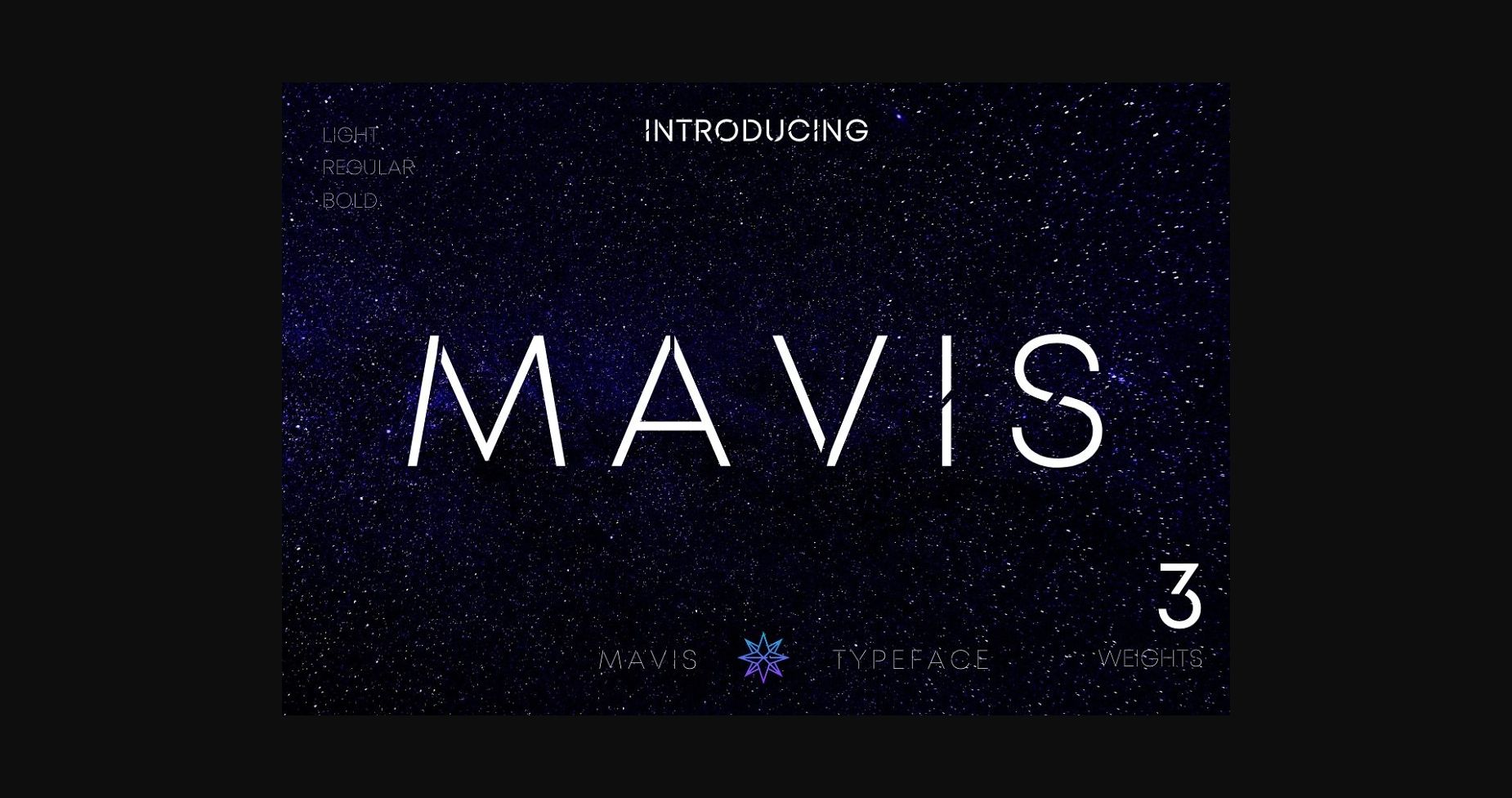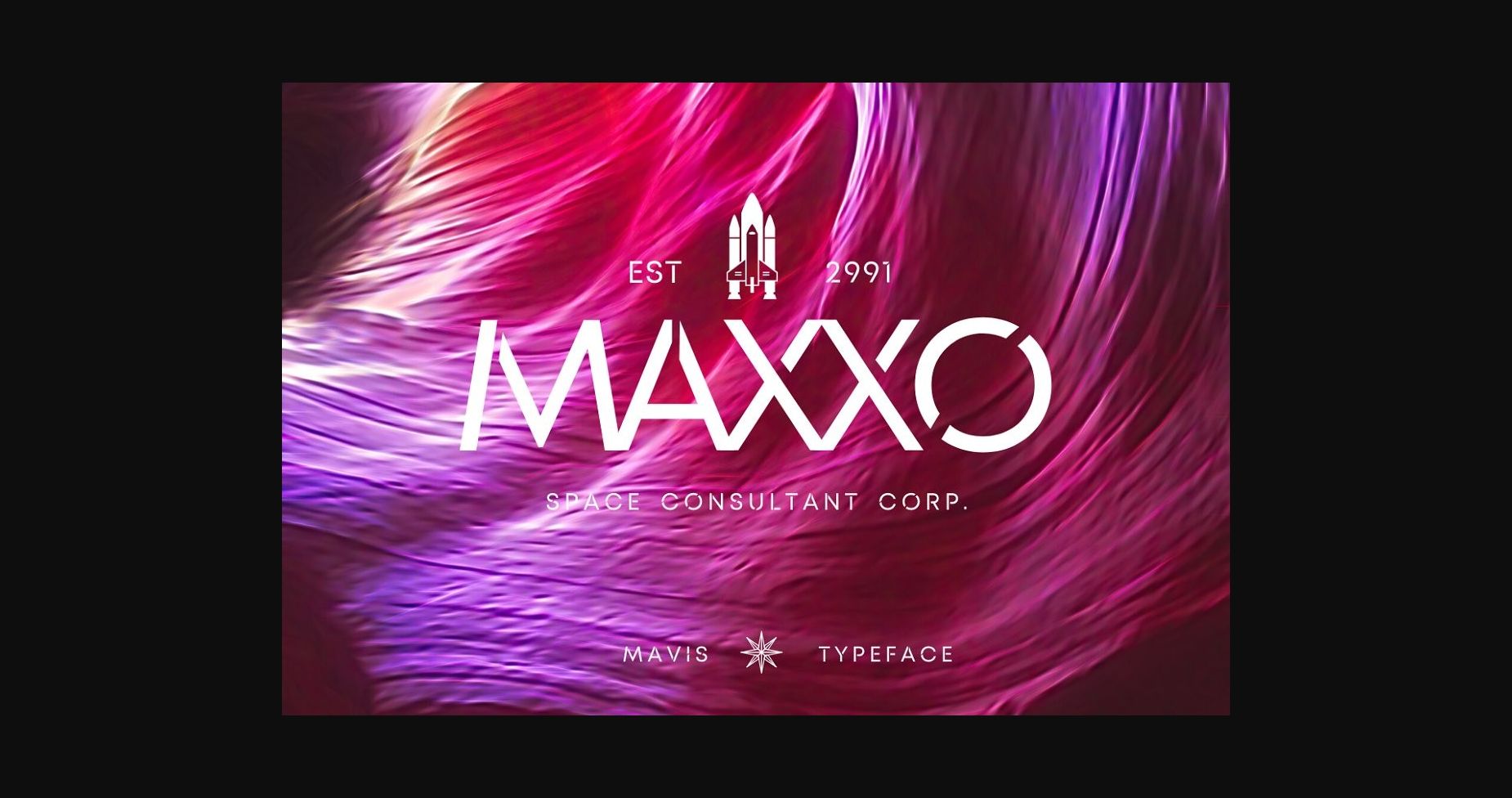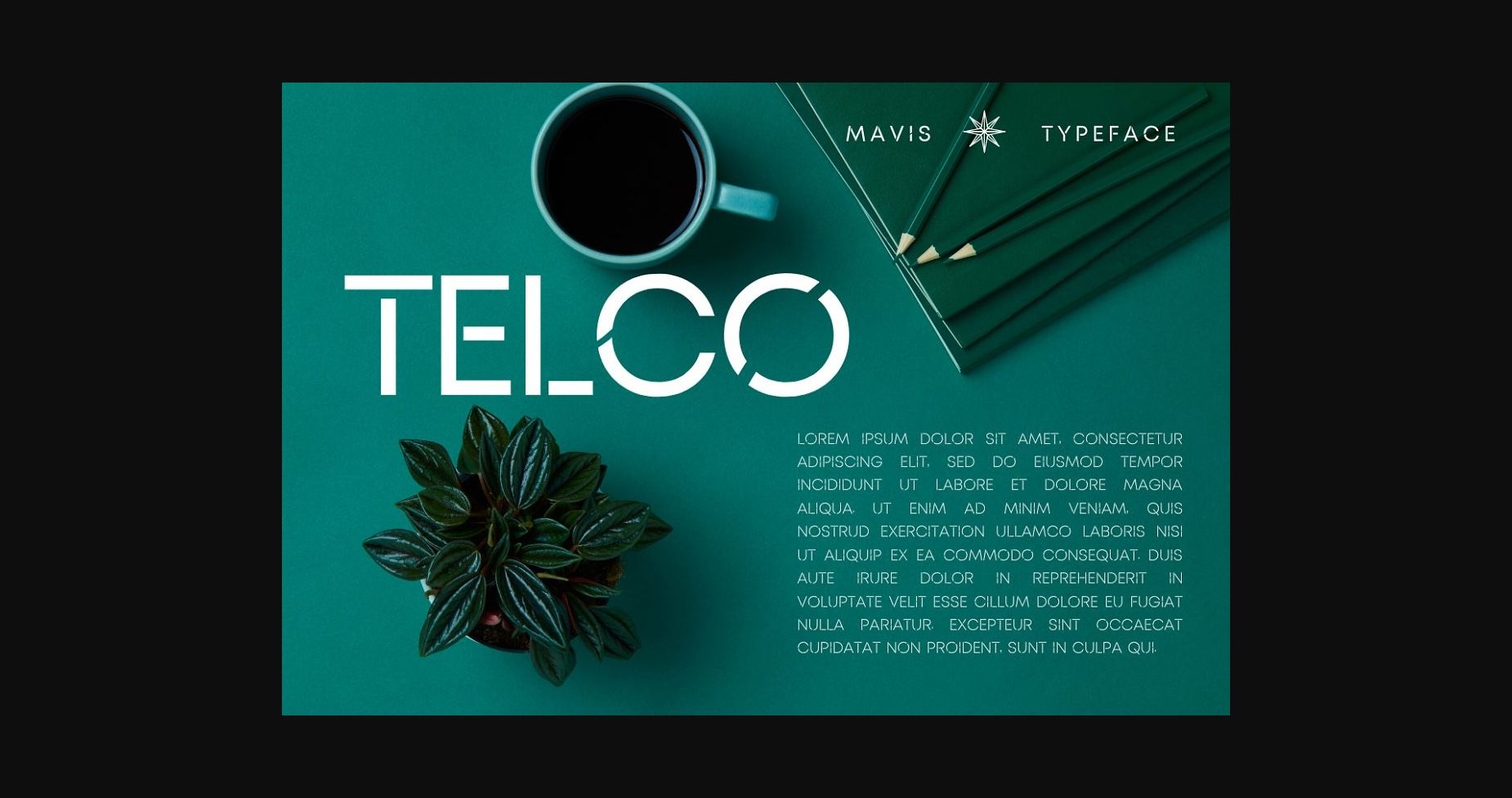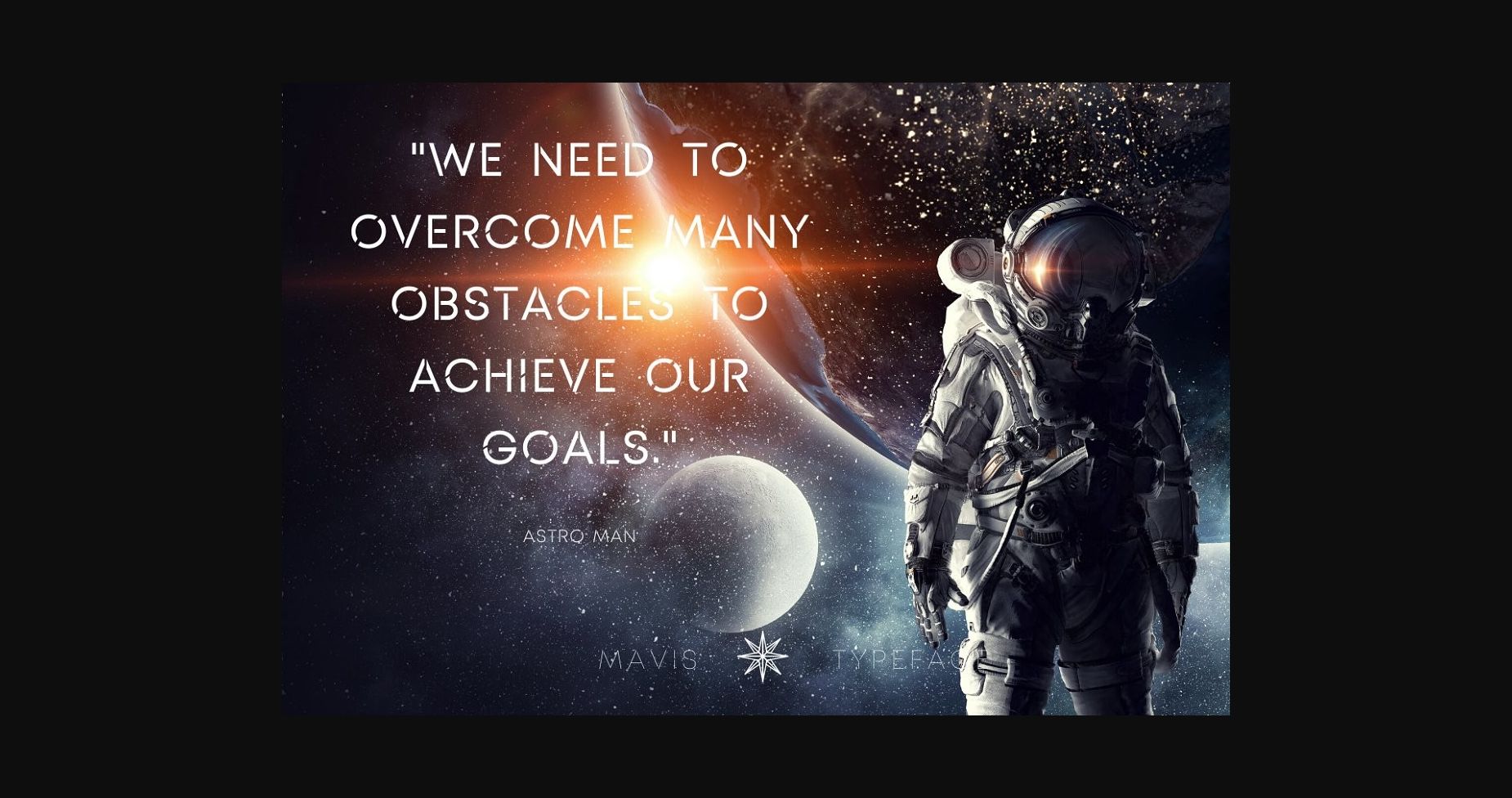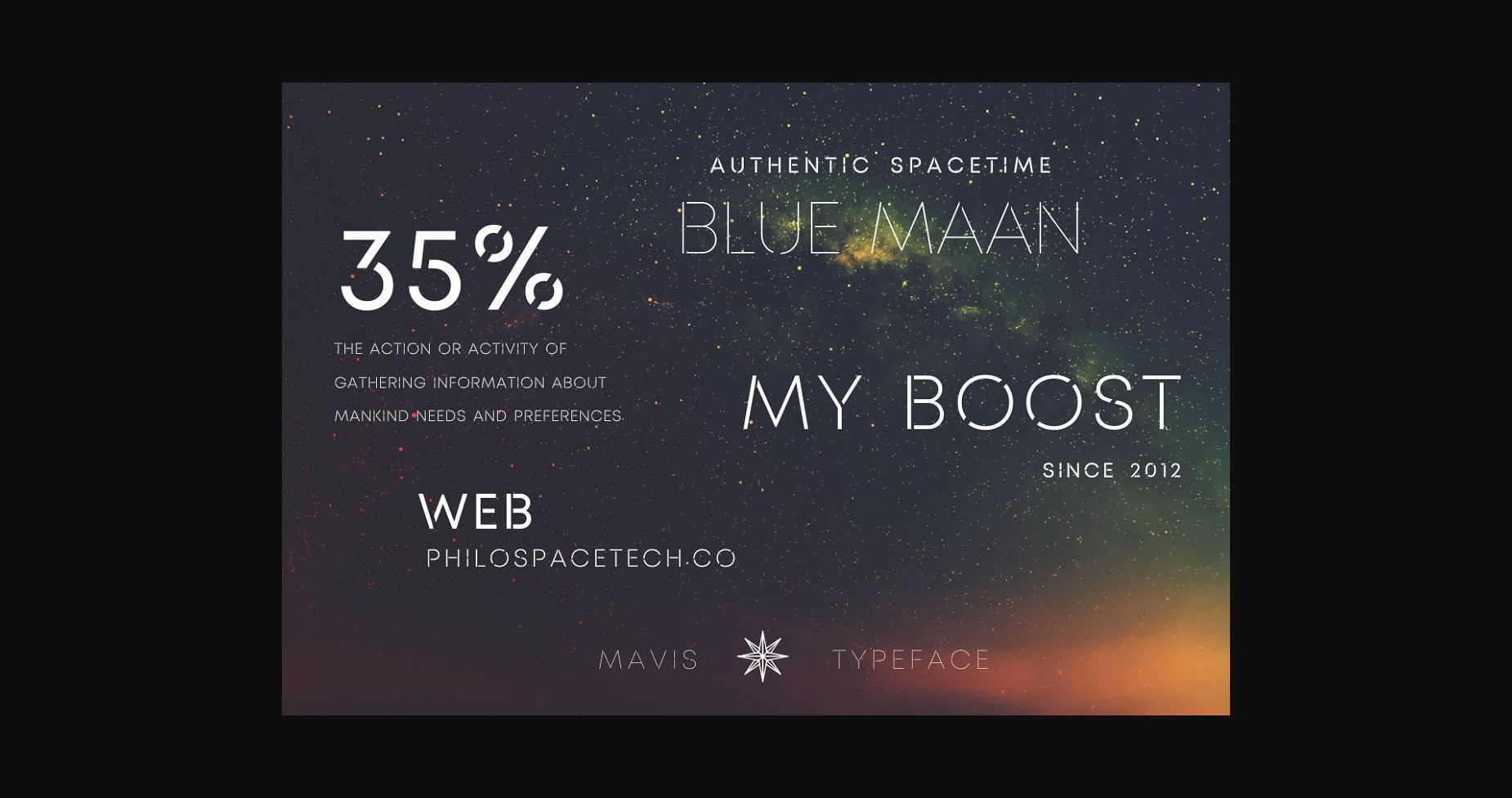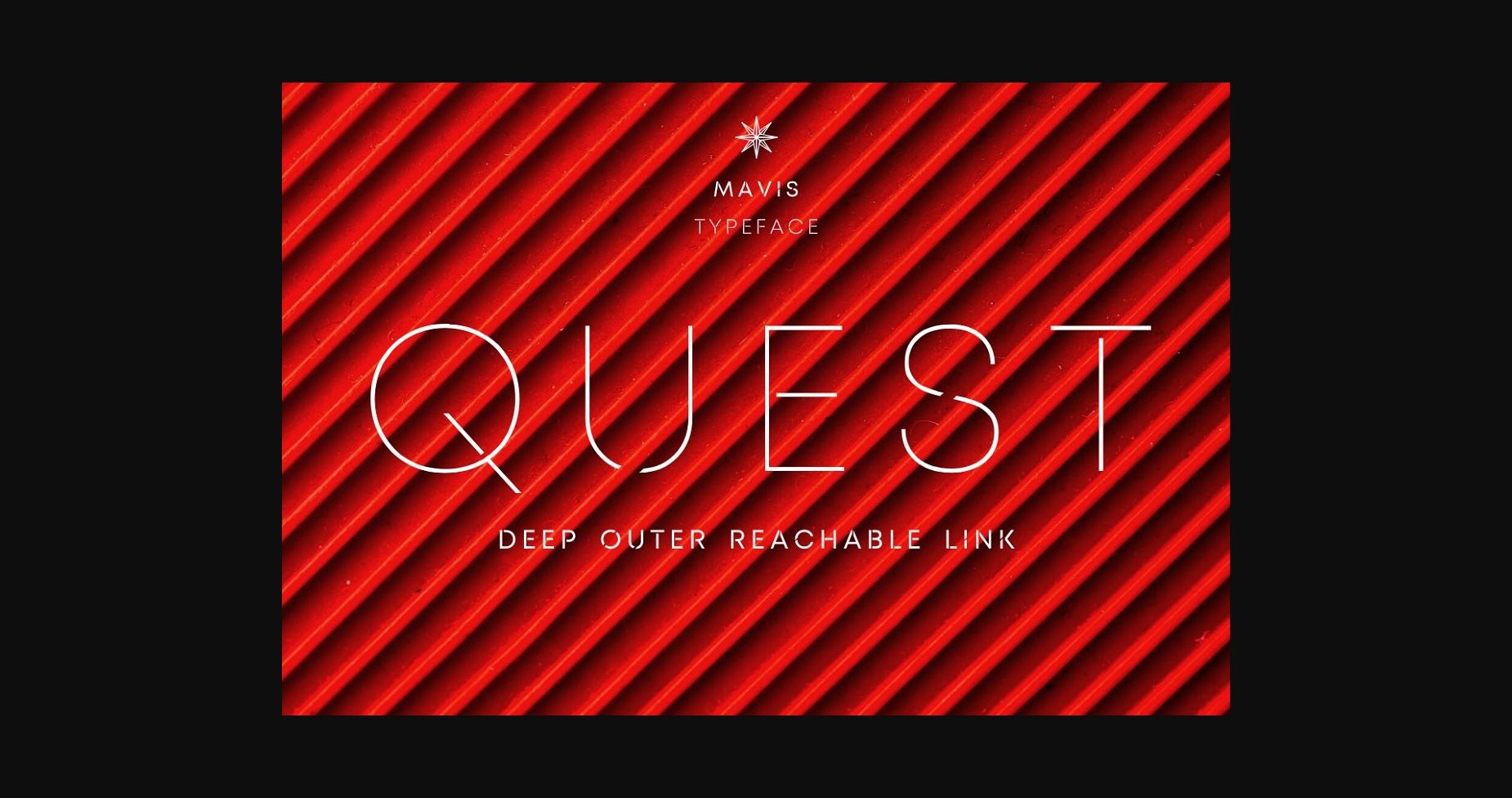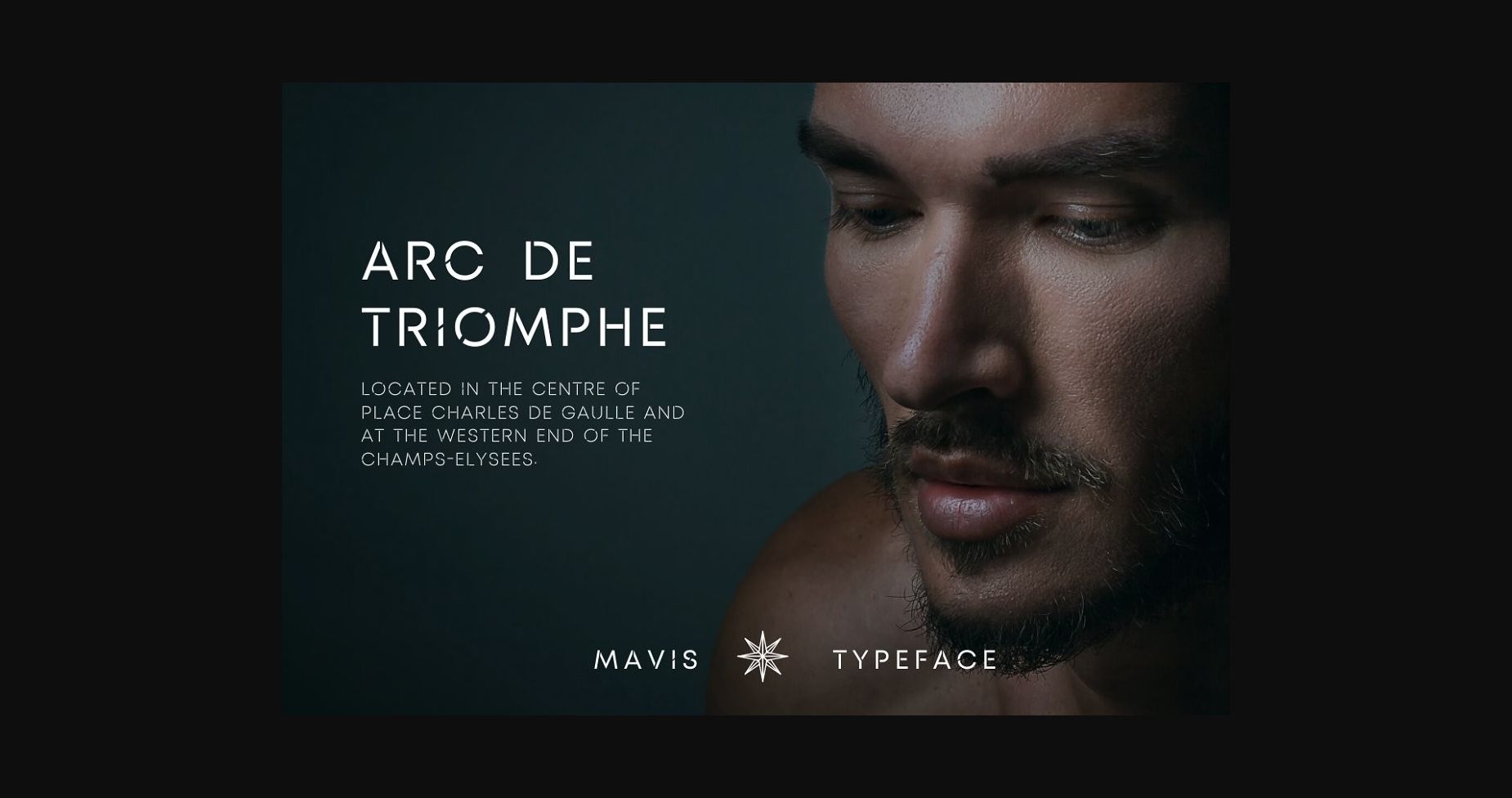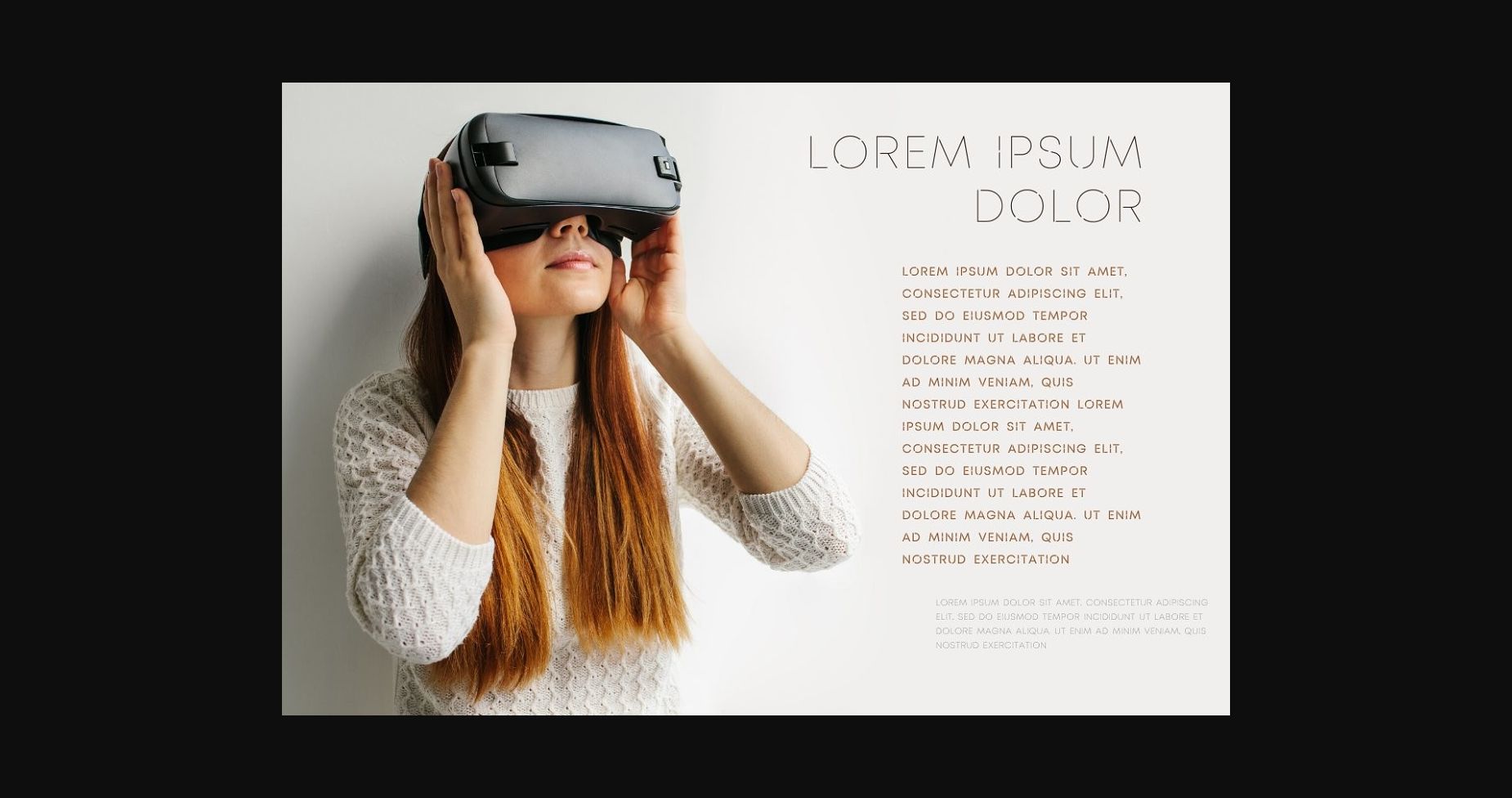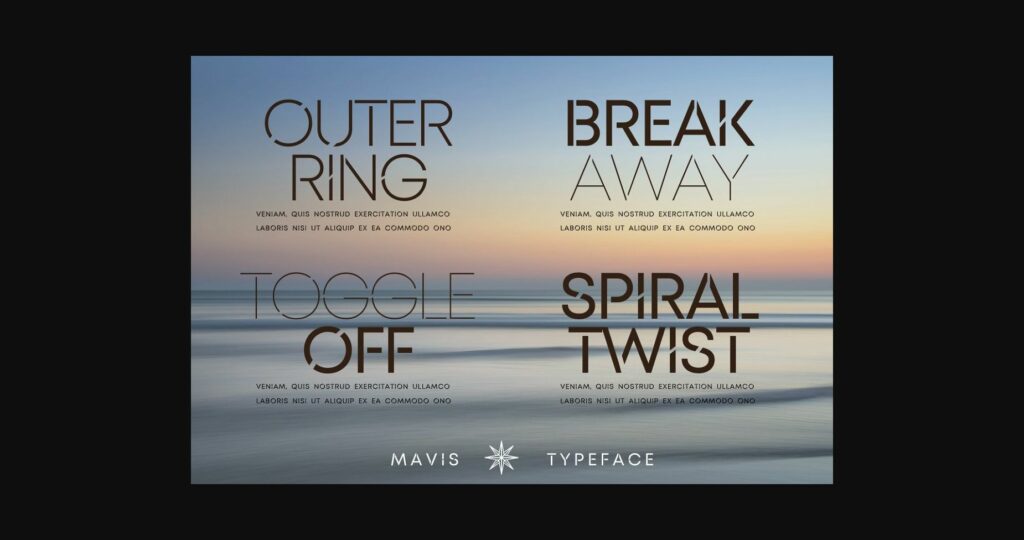
Mavis is a thin and clean sans serif font. It can easily be matched to an incredibly large set of projects, so add it to your creative ideas and notice how it makes them stand out!